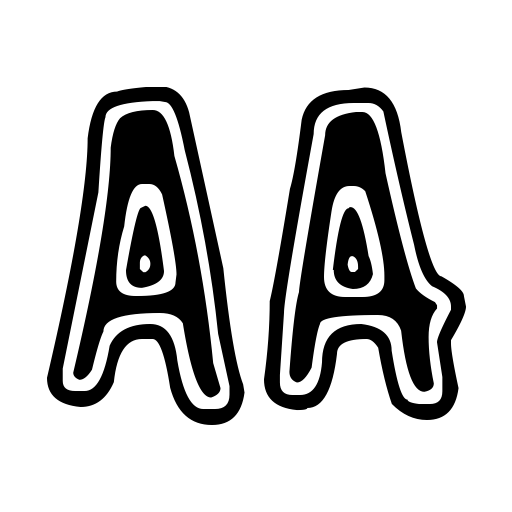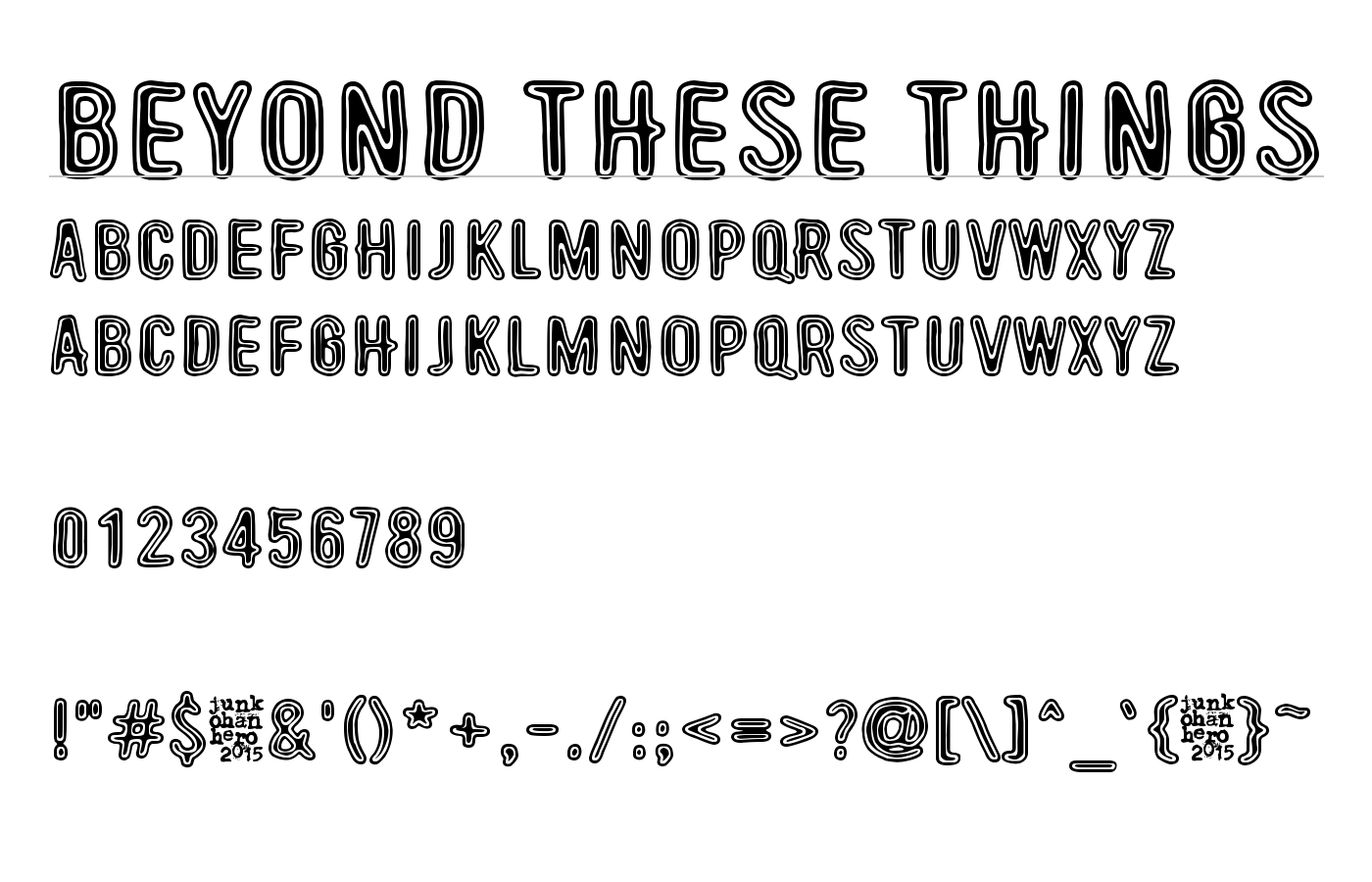
Beyond These Things Font is a playful, outlined sans serif typeface with a hand-drawn, slightly irregular feel that adds personality and charm. Its narrow, tall letterforms and double-line strokes create a sense of fun and creativity, making it perfect for eye-catching headlines, posters, and branding that seek a quirky, artistic vibe. This font works well where a lively, informal atmosphere is desired, such as in creative projects, youth-oriented designs, or casual, unique logos.
Beyond These Things Font
About Beyond These Things Font
| Font family | Beyond These Things Font |